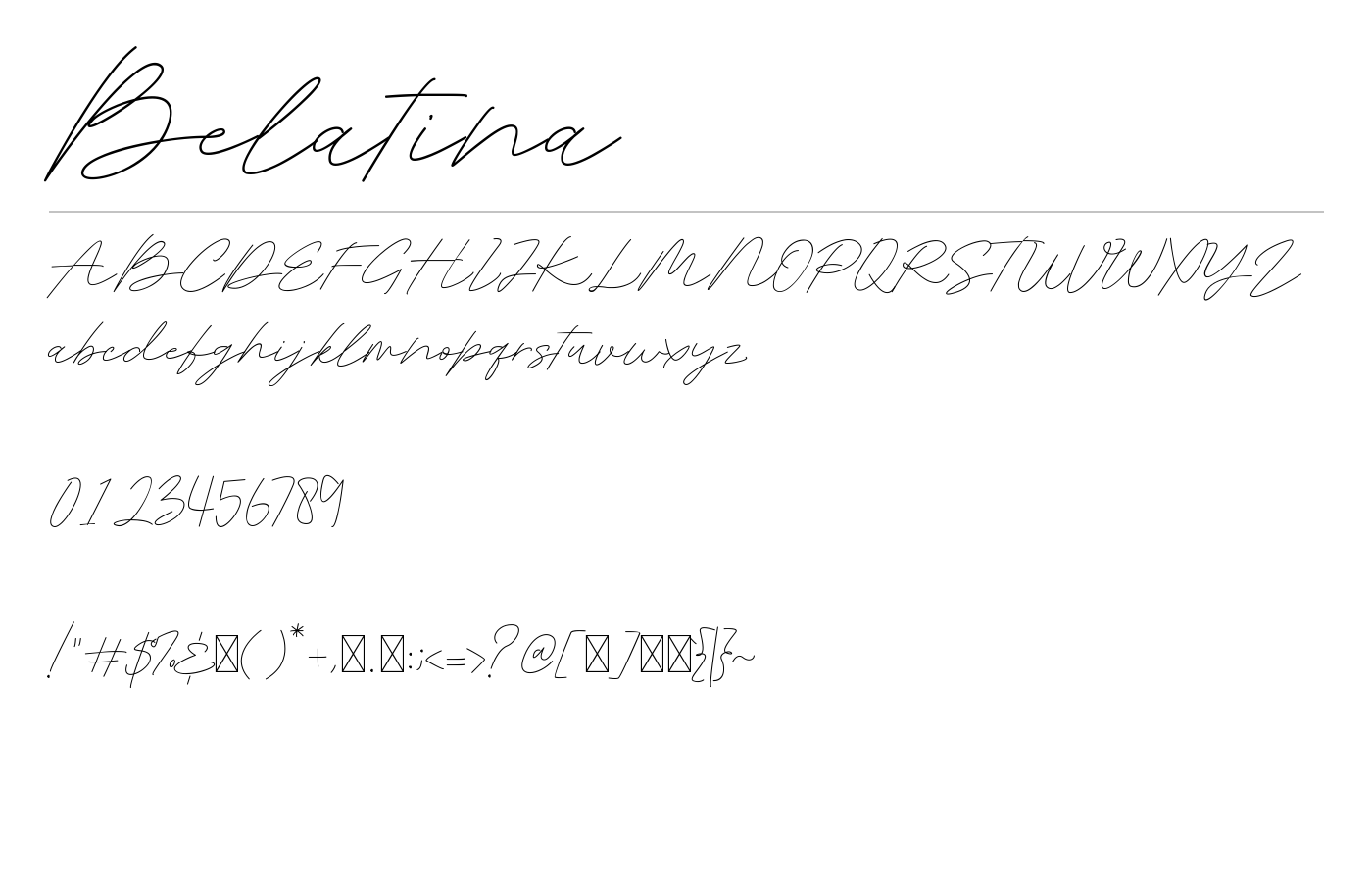
Belatina is a delicate and elegant script font characterized by its thin, flowing lines and graceful, handwritten style. It exudes a modern yet personal feel, making it perfect for invitations, branding, and stylish editorial designs where a touch of sophistication and warmth is desired. Its airy lightness and natural curves create a sense of intimacy and refinement, suitable for fashion, beauty, and creative projects.
Belatina Font